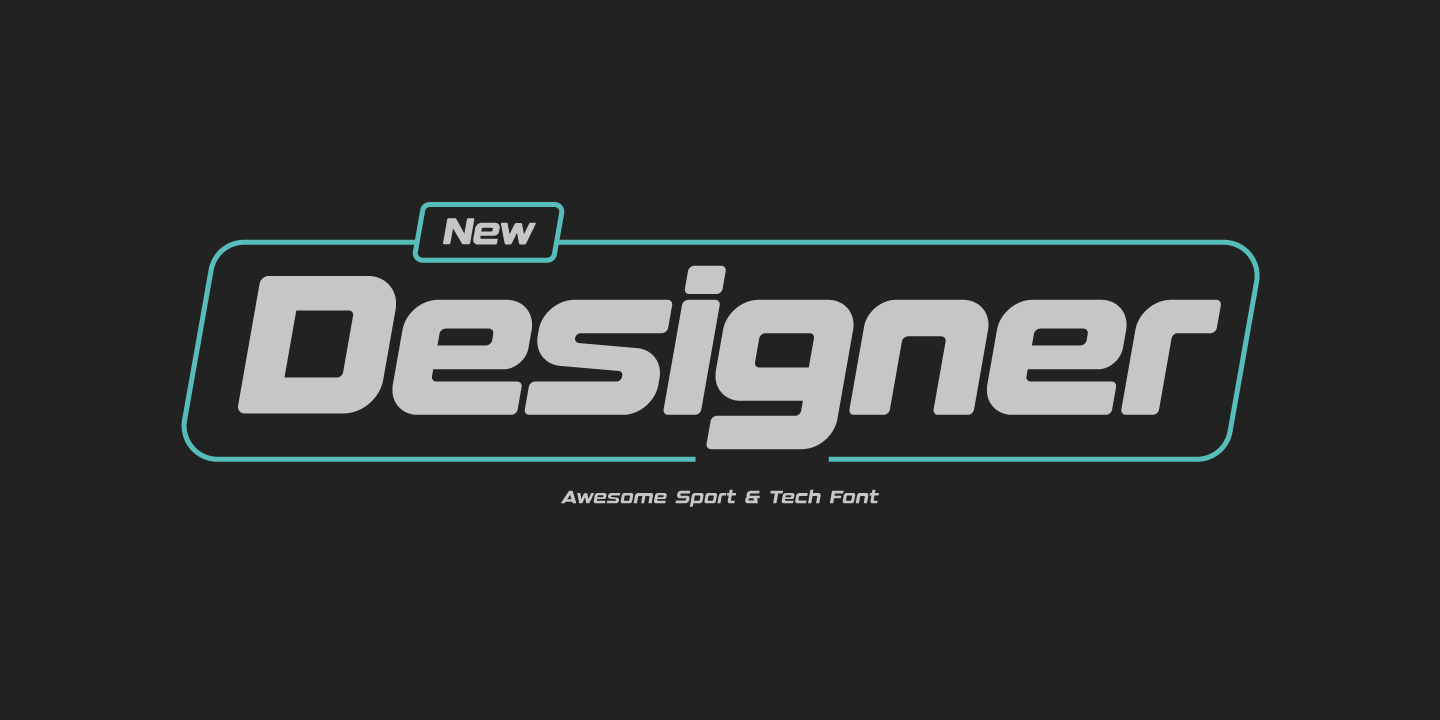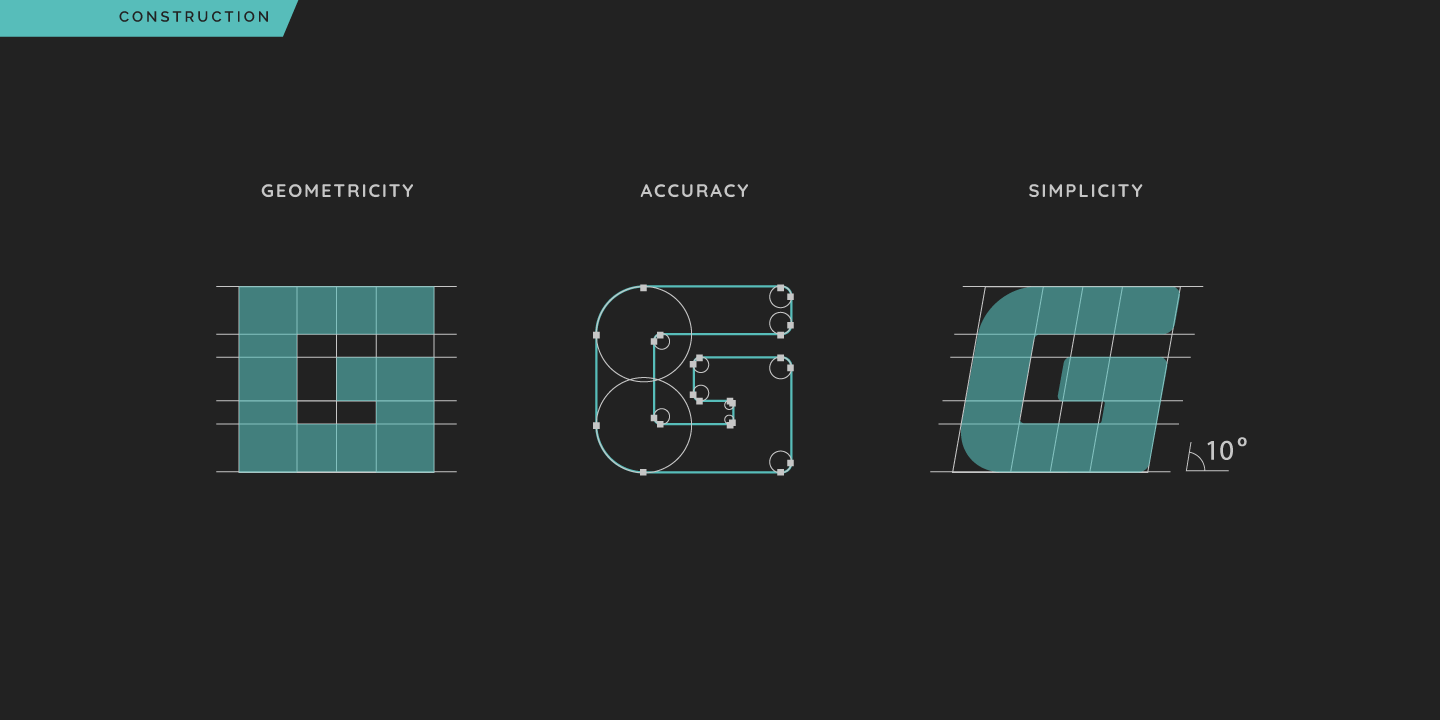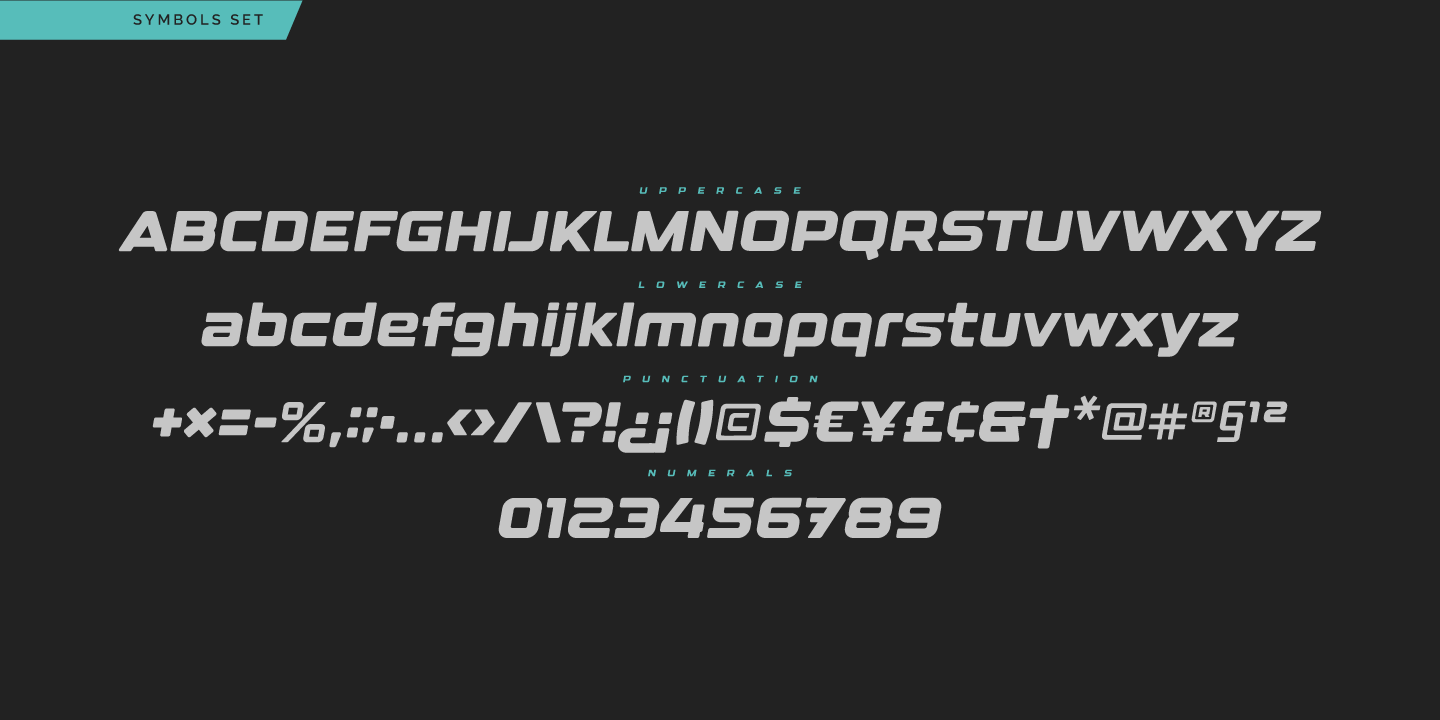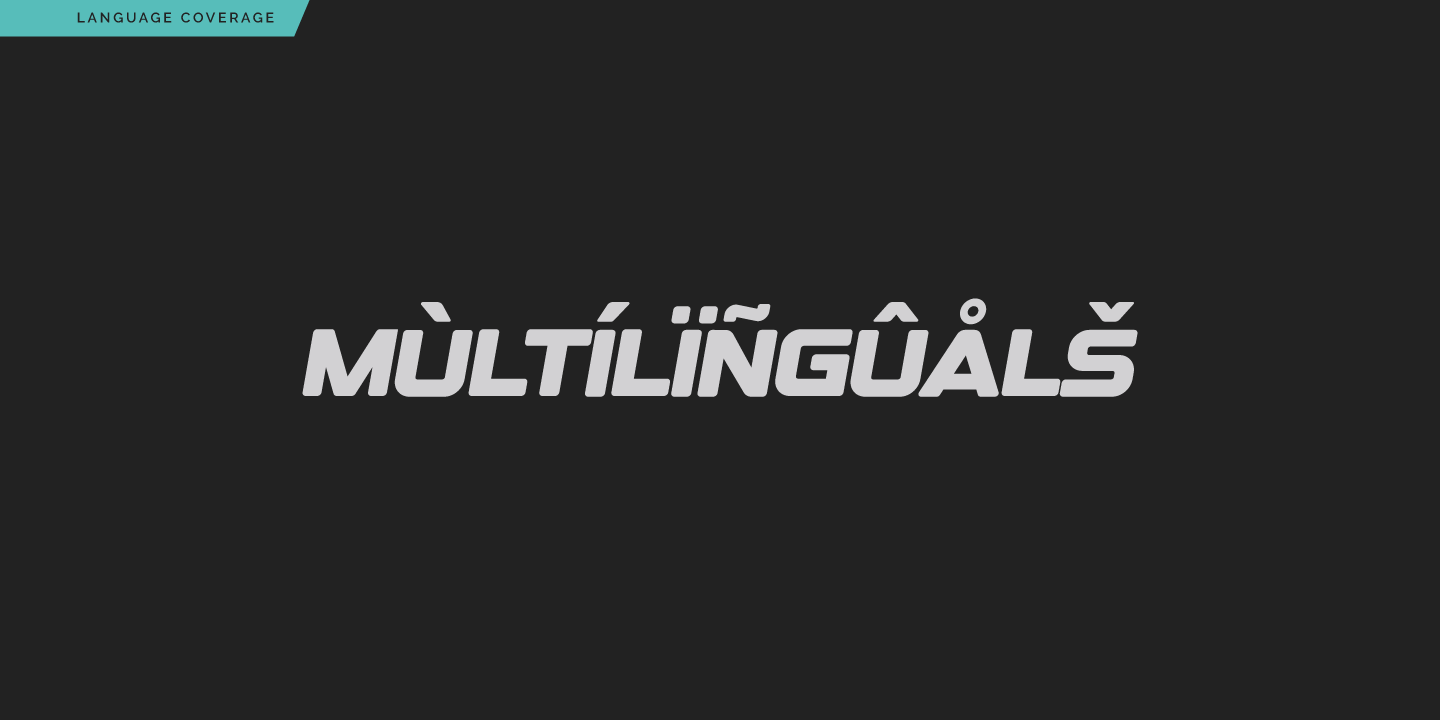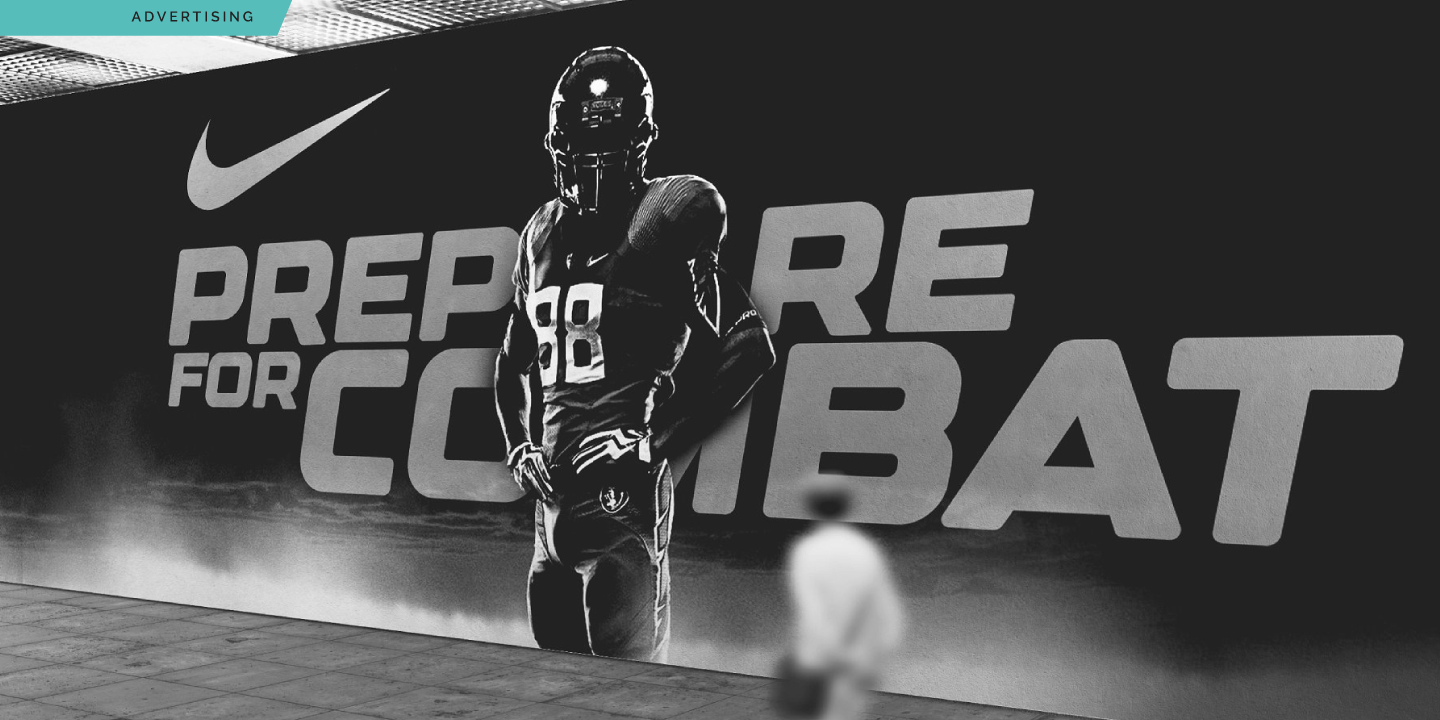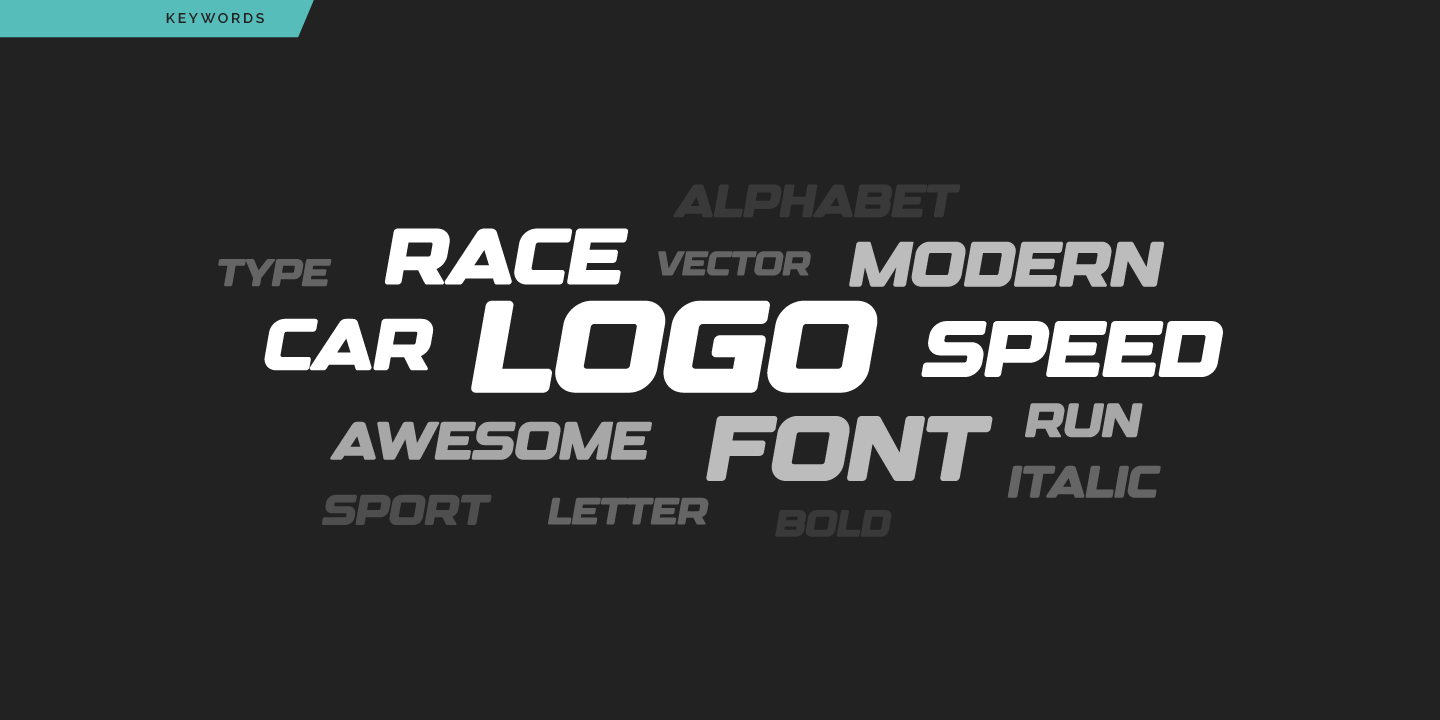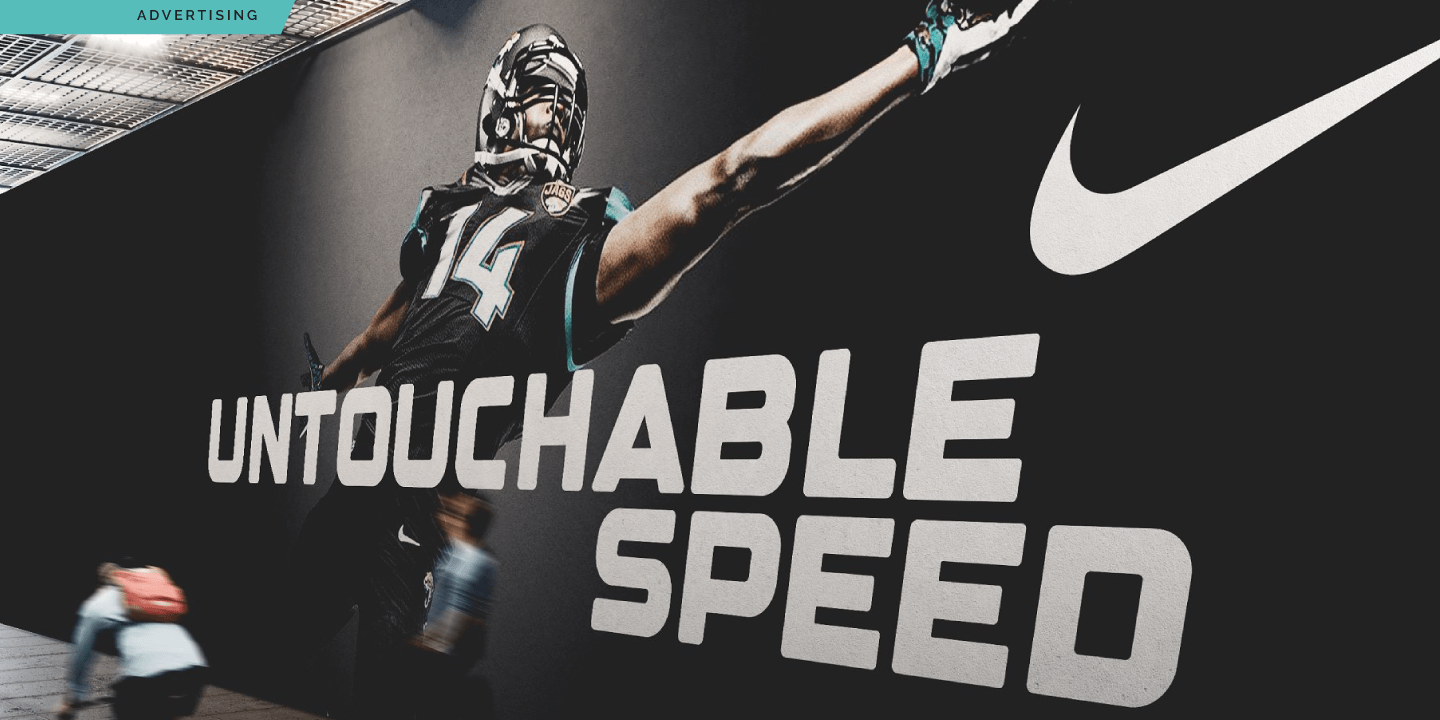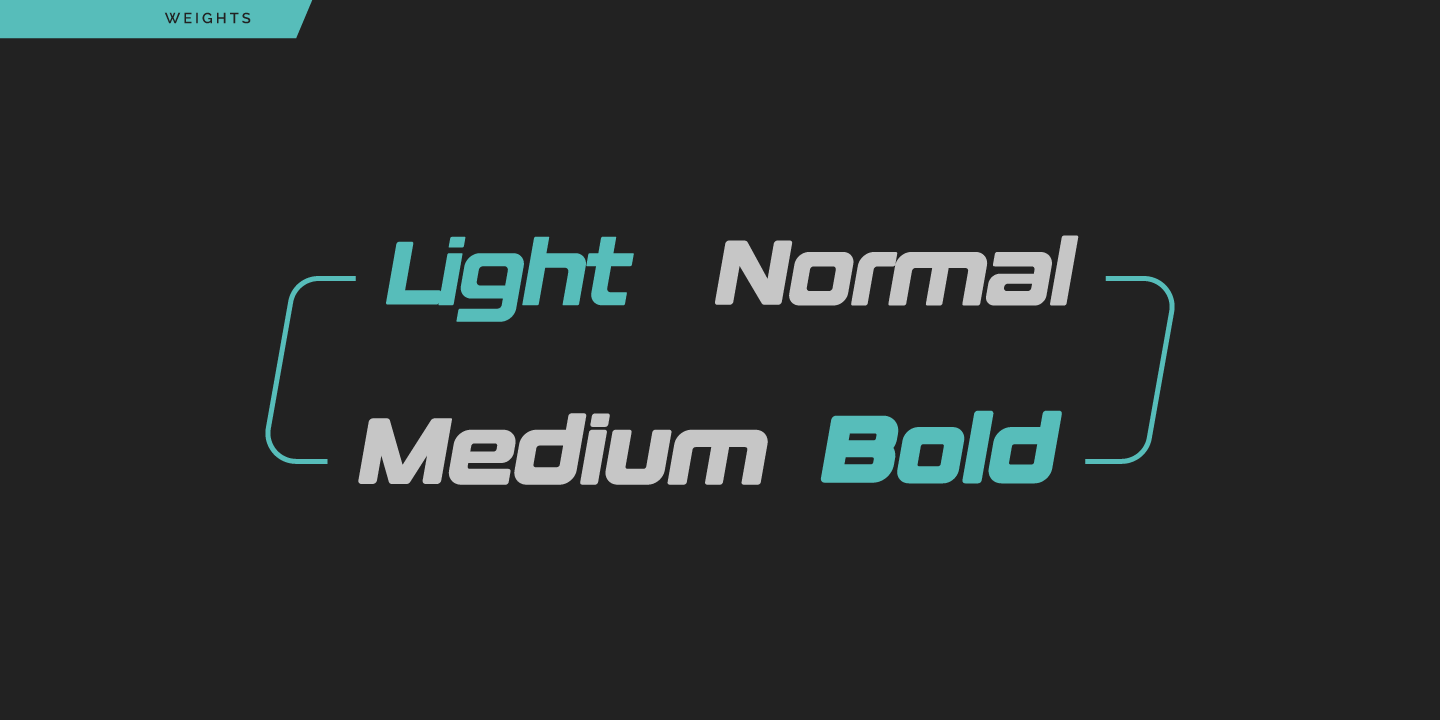
Designer is an italic sans serif family created for sports, technology and high-energy visual identities. Its forward slant, compact proportions, rounded corners and geometric construction give the typeface a dynamic appearance that combines speed, strength and modern precision.
Available in Light, Normal, Medium and Bold weights, Designer works well for sports logos, team identities, motorsport graphics, esports branding, fitness campaigns, automotive design, technology products, apparel, packaging, posters and advertising headlines. The lighter weights provide a cleaner technical character, while the heavier styles deliver strong impact in large display typography.
The family includes uppercase and lowercase letters, numerals, punctuation, currency symbols and multilingual Latin support. Its coordinated four-weight system makes Designer suitable for complete branding projects that require both powerful headlines and supporting typography.